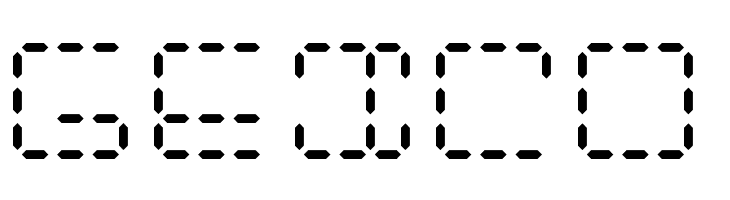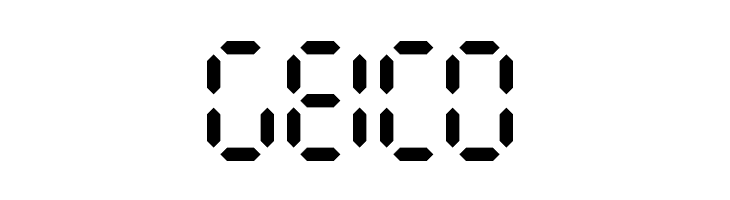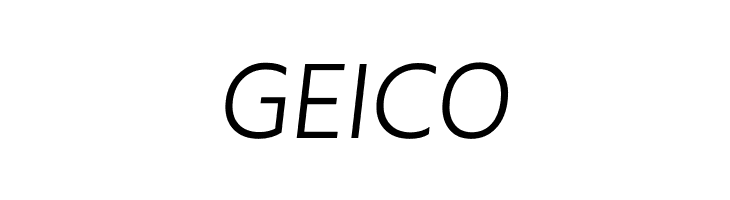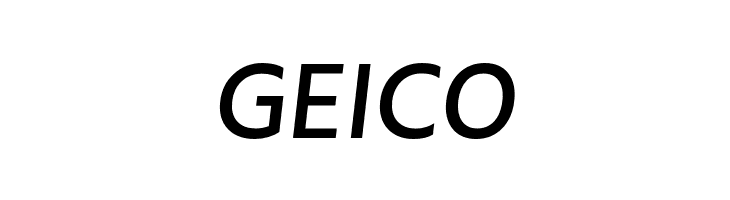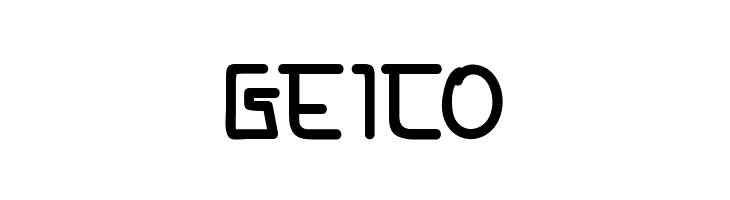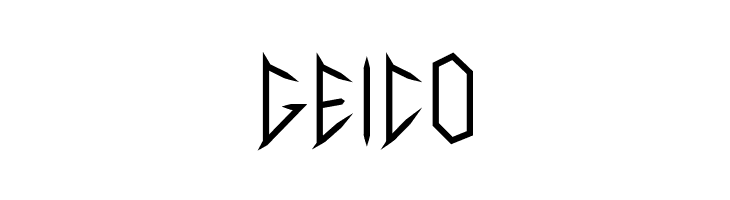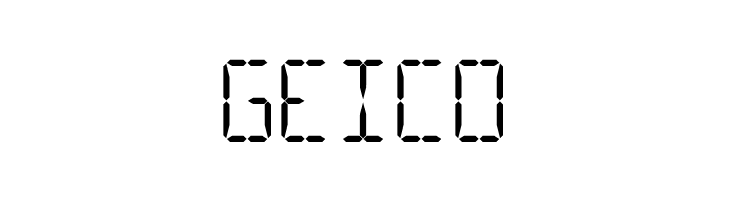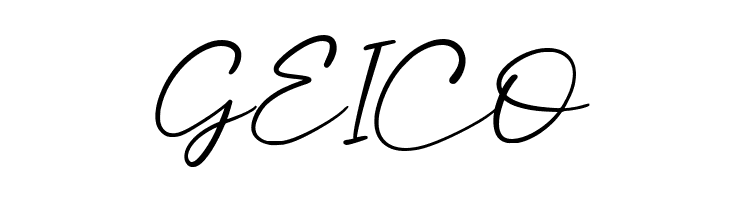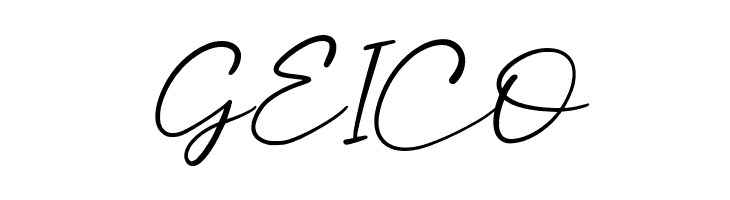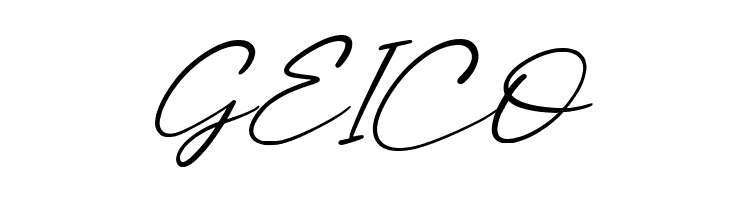
A fluid and elegant script font with a natural, cursive flow.
A flowing, cursive font with elegant, connected strokes and a handwritten appearance.
A flowing, cursive italic font with elegant and smooth strokes.
An elegant, flowing script font with smooth, cursive letterforms.
A bold, angular font with a modern, edgy style.
A bold, geometric font with a three-dimensional shadow effect and sharp edges.
A bold, dynamic font with a three-dimensional effect and angular design.
A bold, geometric font with strong, angular lines and tight spacing.
A bold, industrial font with mechanical and rivet-like details.
A bold, geometric font with sharp angles and a modern look.
A bold, geometric font with a vintage sports-inspired design.
A modern, geometric font with bold, structured characters.
A segmented, geometric font inspired by digital displays.
A segmented, digital-style font inspired by classic LED displays.
A modern, geometric sans-serif font with uniform stroke thickness.
A segmented, digital-style font inspired by classic calculator displays.
A dotted, digital-style font with a modern, technological appearance.
A segmented, digital-style font inspired by classic LCD displays.
A bold, modern font with thick strokes and a strong presence.
A modern italic font with clean lines and a sleek appearance.
A sleek, modern, light italic sans-serif font with medium contrast.
A clean, modern sans-serif font with uniform geometric letterforms.
A modern sans-serif font with a slight italic slant and medium weight.
A modern, clean sans-serif font with uniform strokes and excellent readability.
A clean, modern sans-serif font with balanced proportions and high legibility.
A modern, semi-bold italic font with medium contrast and a sleek design.
A modern sans-serif font with a semi-bold weight, offering clarity and versatility.
A playful, hand-drawn style font with rounded edges and consistent stroke width.
A playful, hand-drawn font with rounded edges and consistent stroke width.